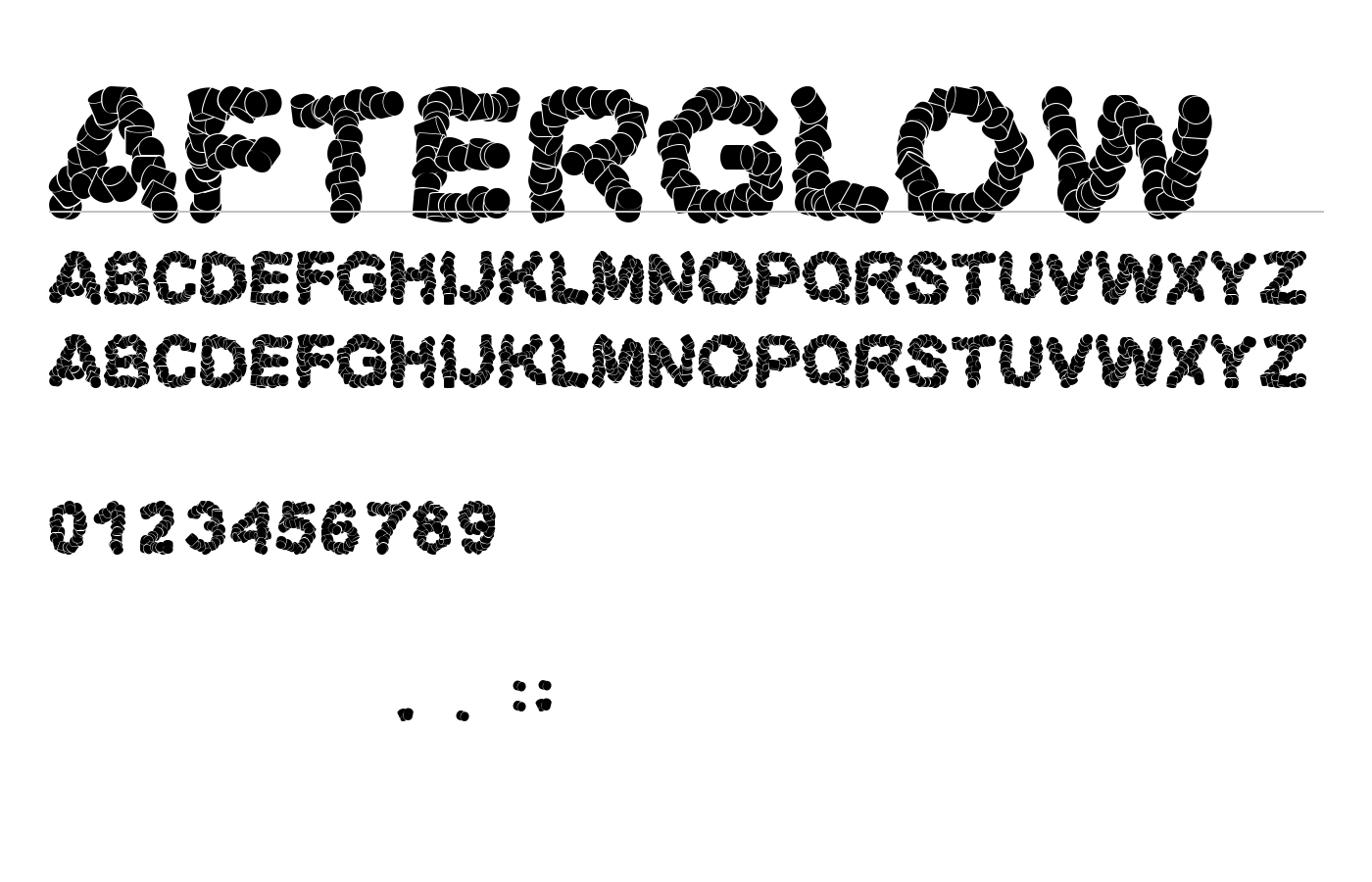
Afterglow is a bold, playful display font characterized by its unique construction of layered circular shapes forming each letter. This all-caps sans serif design offers an energetic and creative vibe, ideal for eye-catching headlines, posters, and branding that seeks a fun, dynamic, and informal personality. Its distinctive style works best in large sizes where its detail and texture can shine, making it perfect for youth-oriented or artistic projects.
| Font family | afterglow Font |
| Designer | hertoy |